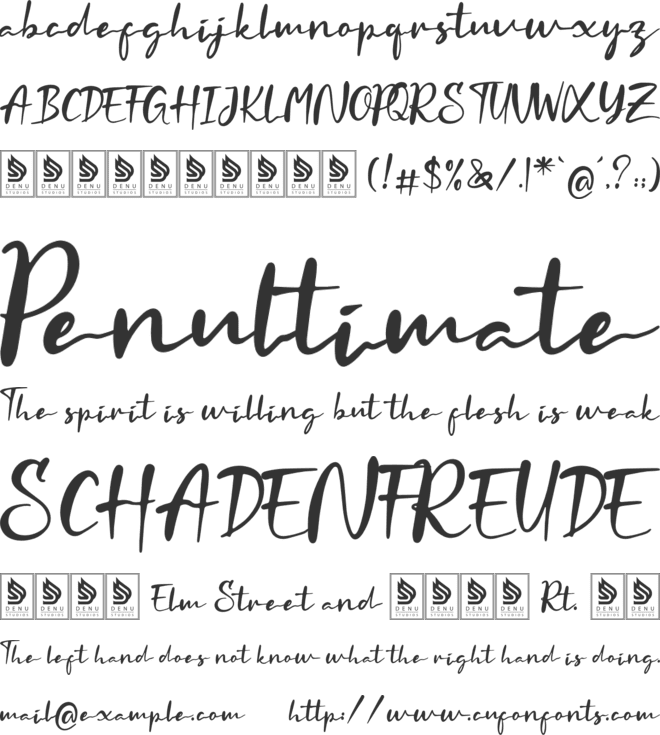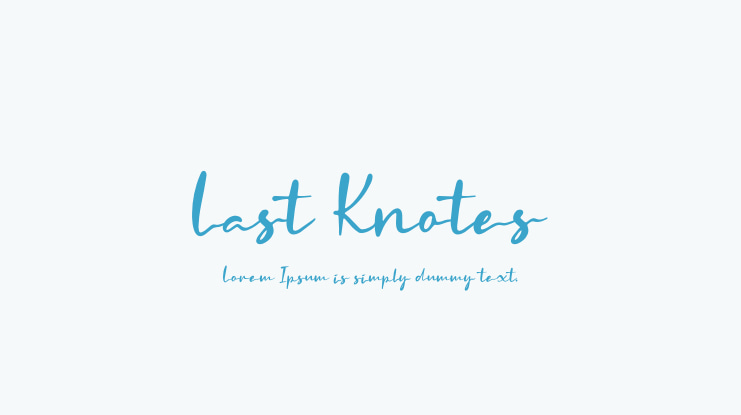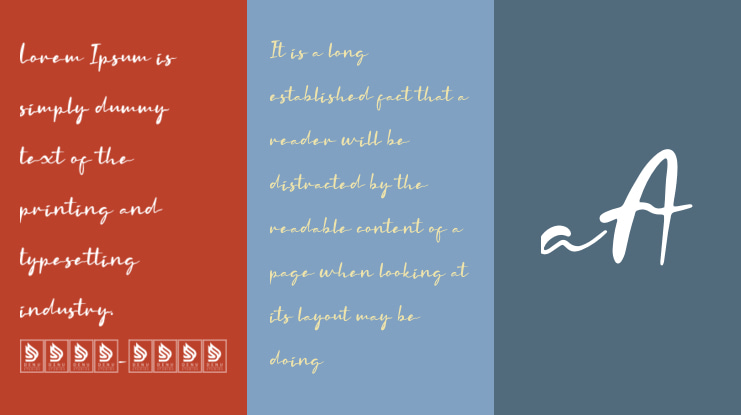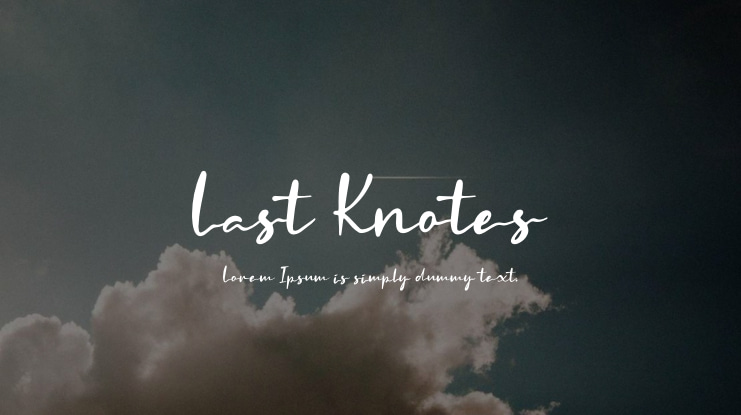
**Last Knotes | Hand Drawn Script**
This font is perfect for projects such as logos, branding endeavors, homeware designs, product packaging, mugs, quotes, posters, shopping bags, t-shirts, book covers, name cards, invitation cards, greeting cards, labels, photography, watermarks, special events, and any other projects that require a hand-drawn script flavor.